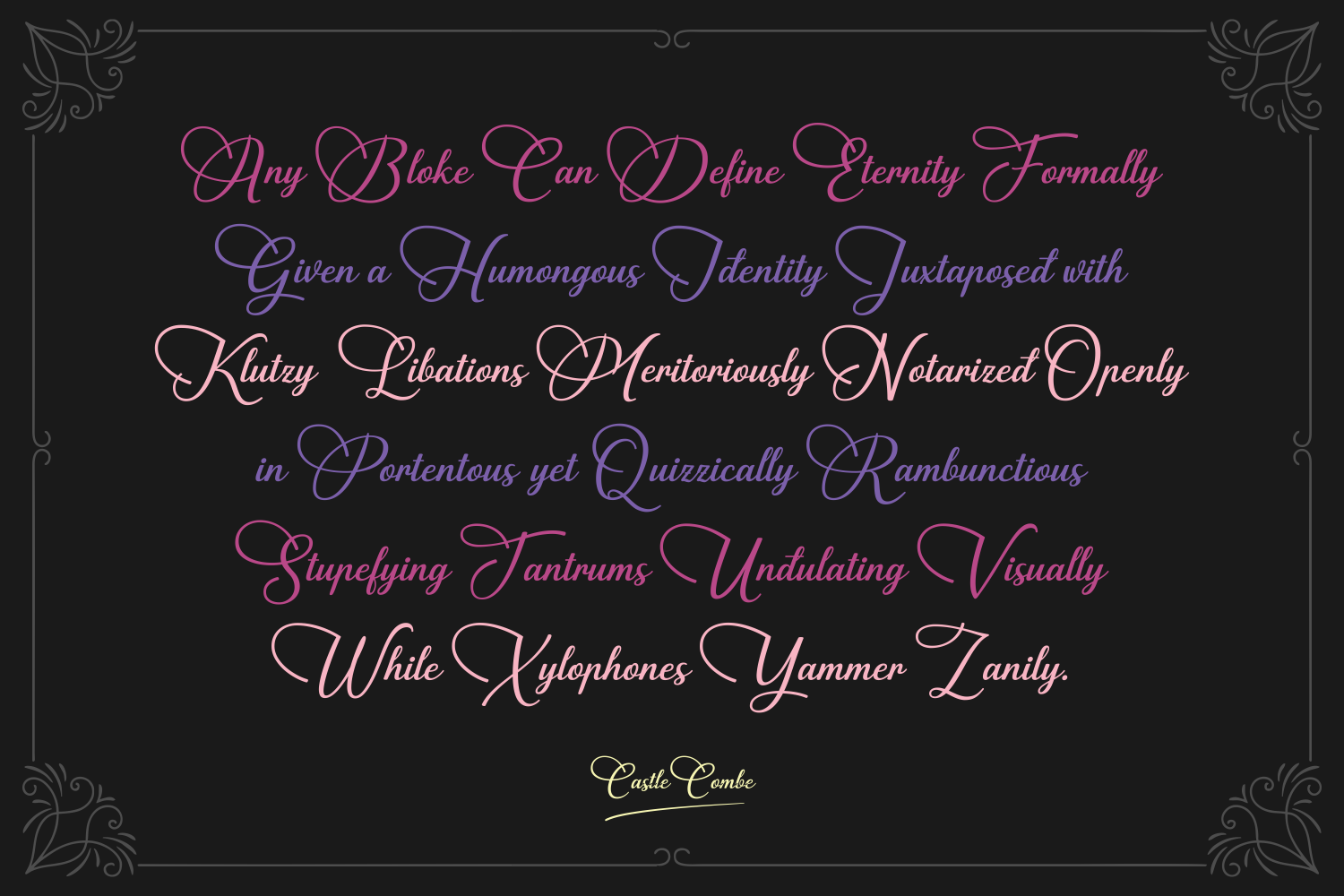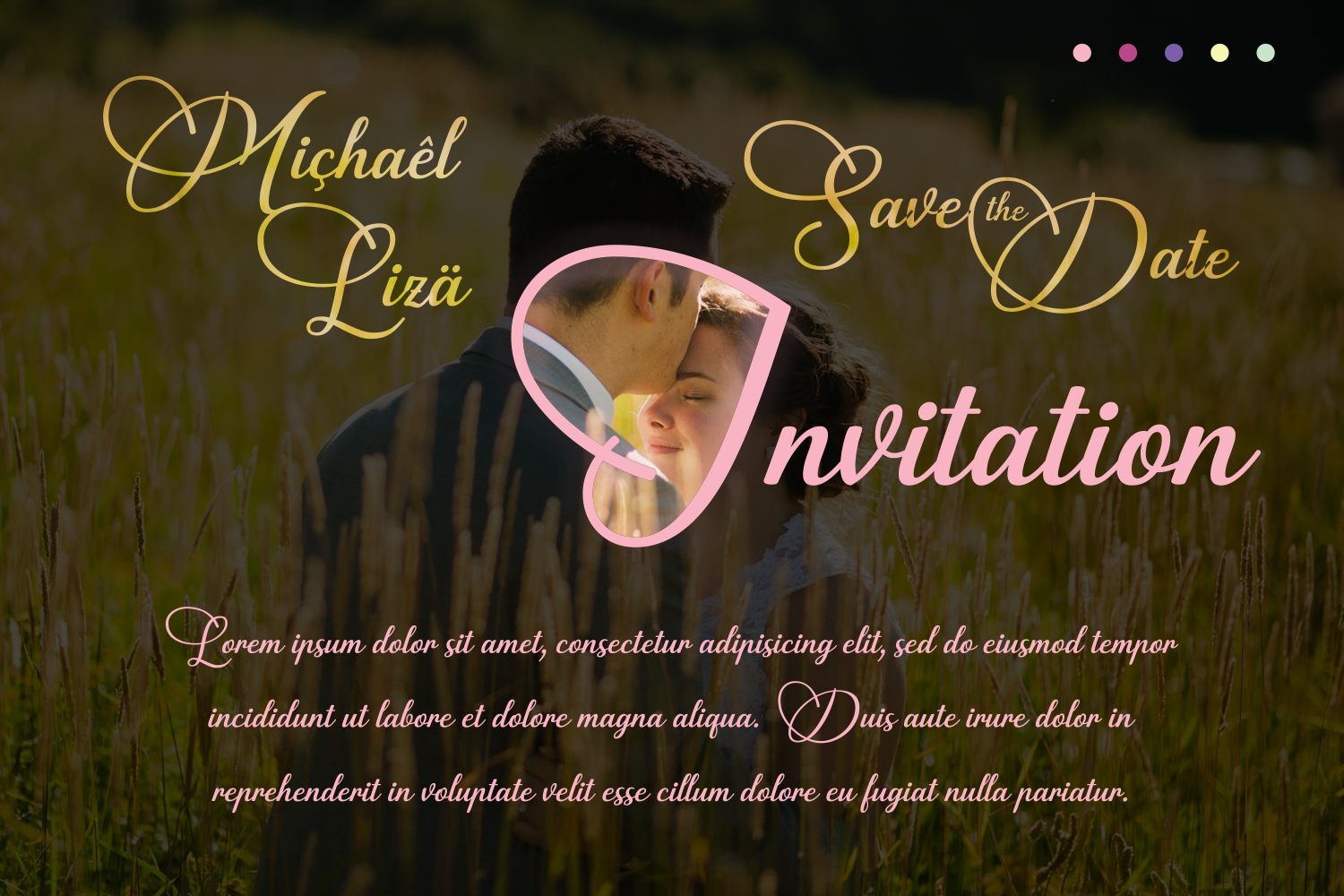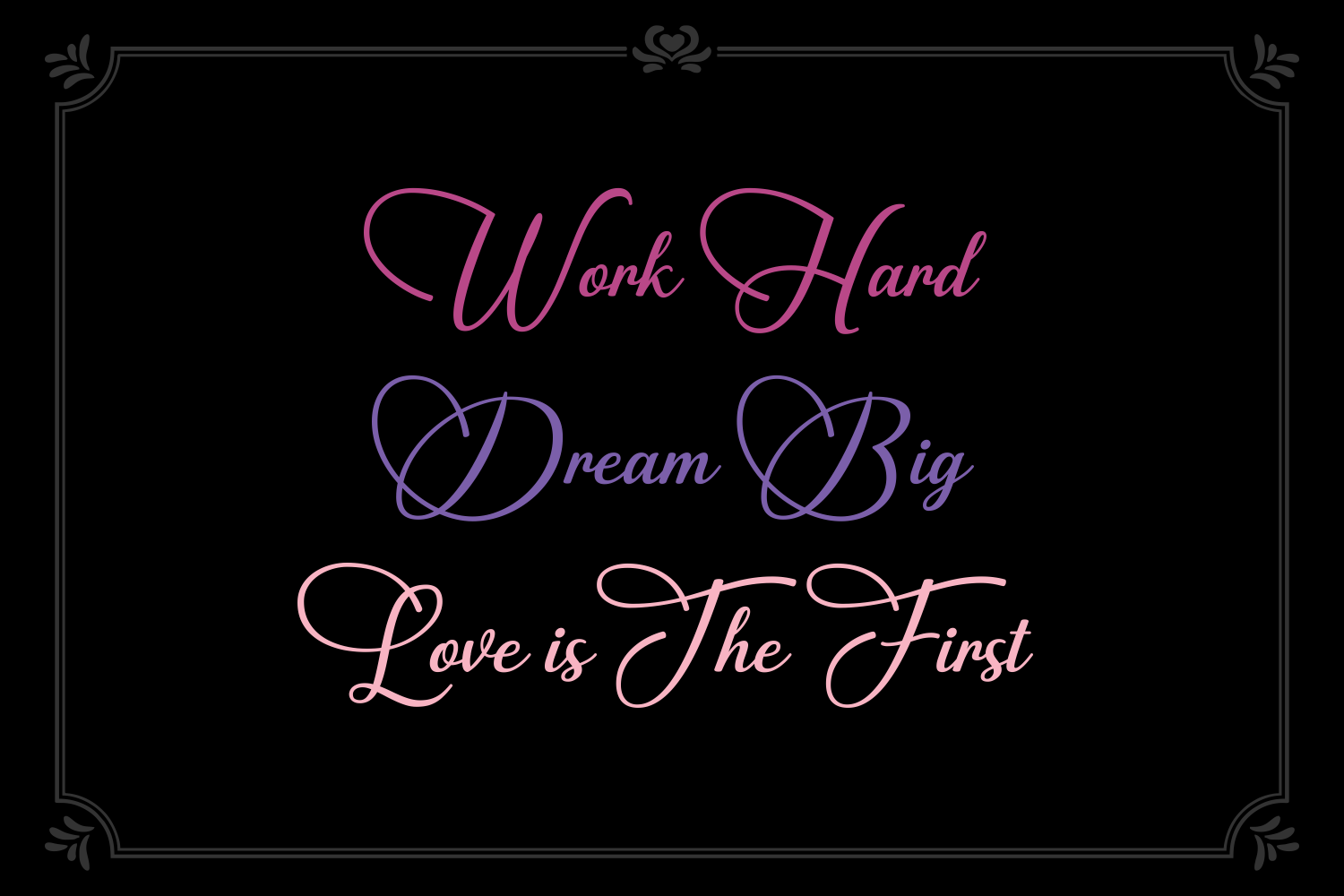
Castle Combe Font
About Castle Combe Font
The Castle Combe font is a decorative, elegant script. It features gorgeous capitals with stunning swashes and clear, easy-to-read and connected lowercase characters.
It’s a very versatile font that will allow you to add a decorative touch to your designs within seconds.